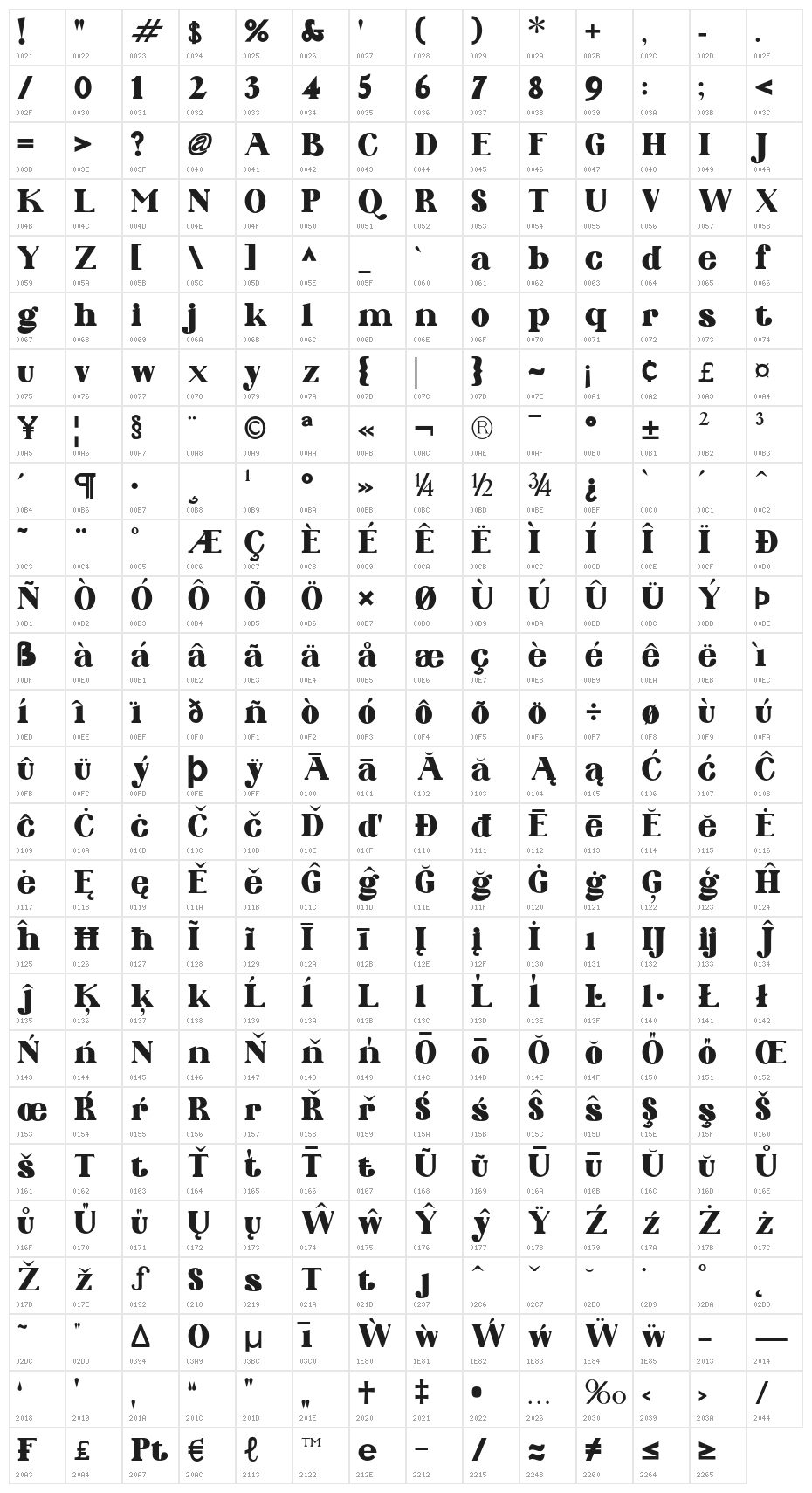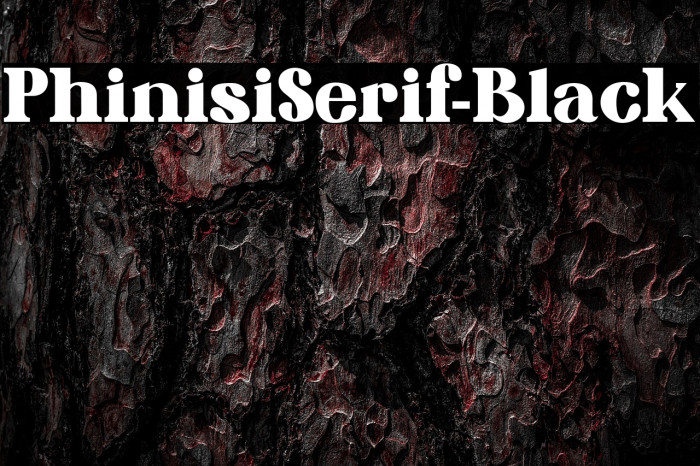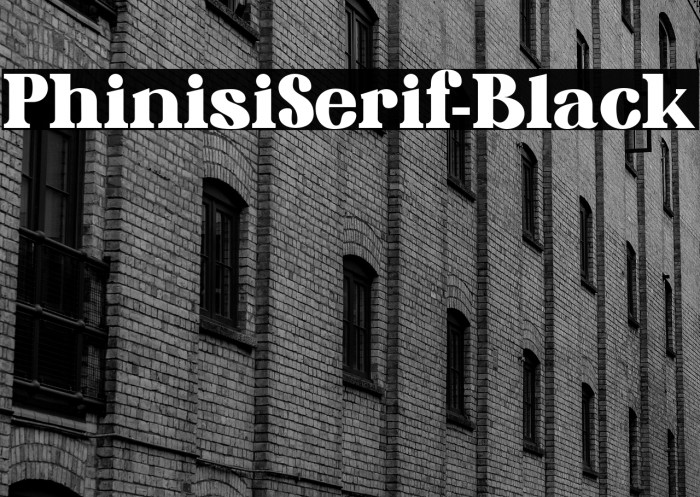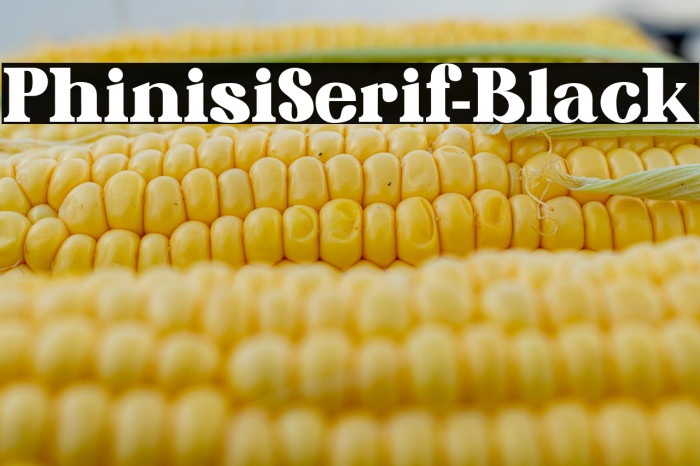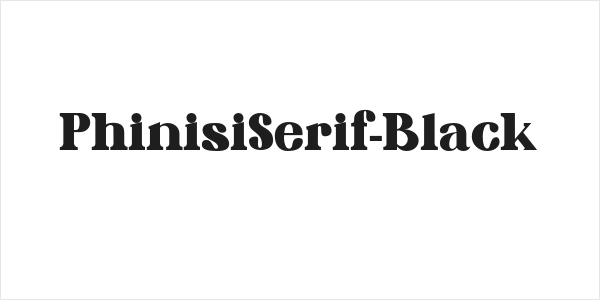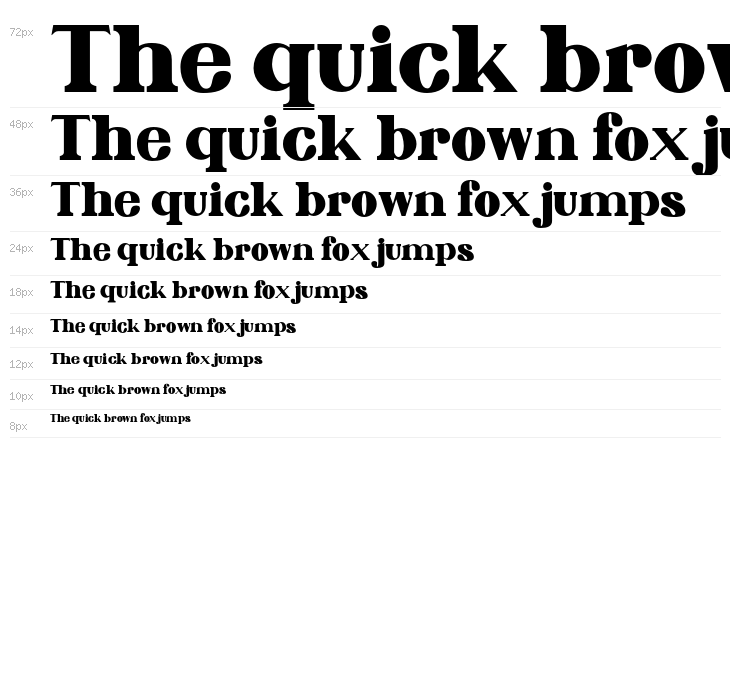
PhinisiSerif-Black Font
PhinisiSerif-Black Description
This font exudes a bold and commanding presence with its thick, robust strokes and pronounced serifs. The uppercase letters are particularly striking, with a strong vertical emphasis and slightly flared serifs that add a touch of elegance. The lowercase letters maintain this boldness, ensuring readability while adding a classic touch. Numbers are equally bold, making them stand out prominently. The special characters are designed with the same attention to detail, ensuring consistency across all glyphs. This font is ideal for making a statement, whether in headlines or logos, where impact is essential.